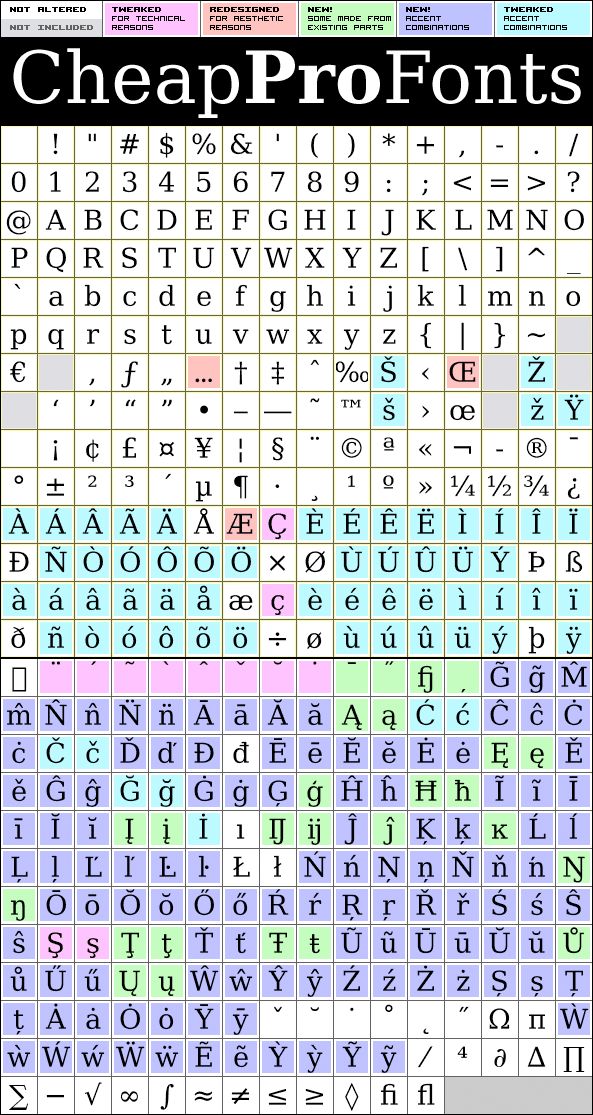
CheapProFonts Serif Pro
Original font design by Jim Lyles
Jim Lyles
405 glyphs!
(264 in original)
326 class kernpairs
= 7624 kerning pairs
(823 in original)
This font is an expanded, multilingual version of Bitstream Vera Serif - as made freely available by Bitstream through the Gnome project. A very nice, modern and versatile font for text settings - available in Regular and Bold weights (but no Italics).
CheapProFonts Serif Pro is a professionally reworked font that contains an extended character set for setting text in 65 languages requiring more than the basic A-Z!